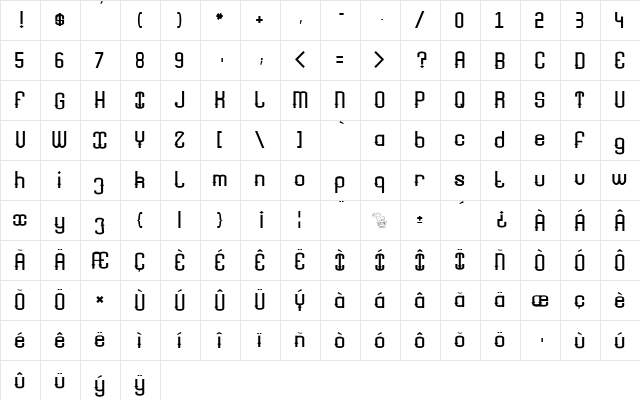
Young Shark Regular
| Foundry | dcoxy Medina Gregory |
| Designer | dcoxy Medina Gregory |
Design Context for Young Shark Typeface
Young Shark offers clean, dependable letterforms without strong stylistic allegiance, making it a practical choice for designers who need flexibility.